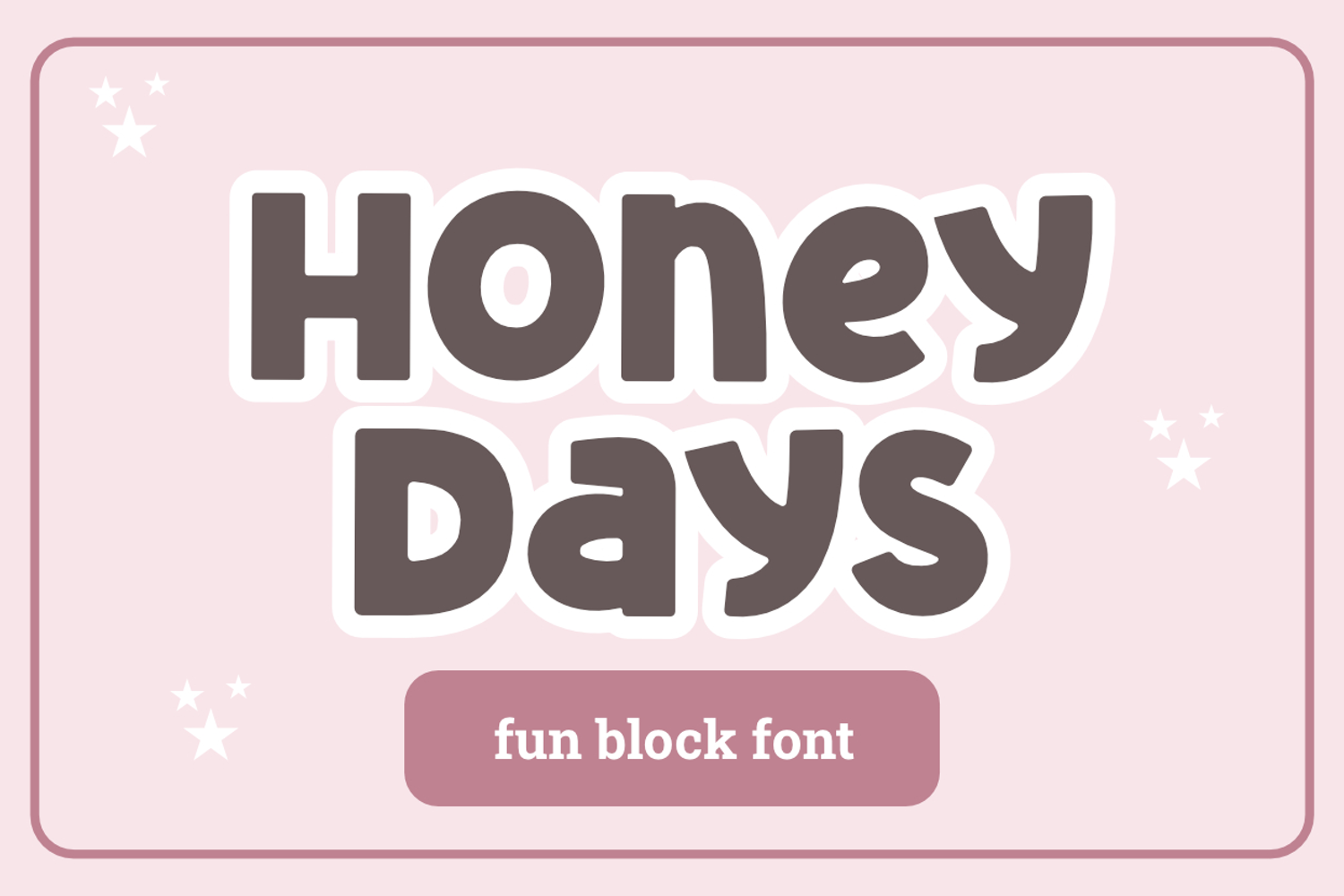
Honey Days is a cute and chunky font.
This font is perfect for cricut projects, canva, painted banners, teachers, logos, planners, goodnotes and more!